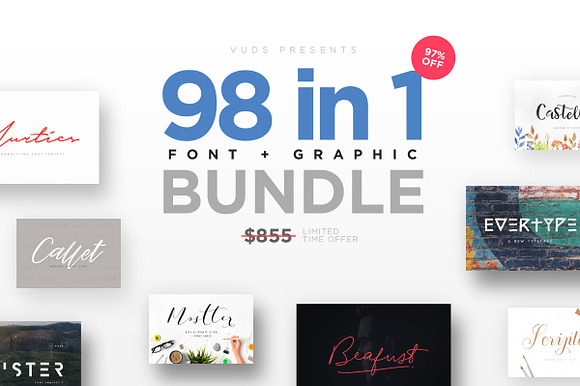
Fontgrap Font Graphic Bundle
INTRODUCING FONTGRAP (98 Fonts + 750 Graphics Pack)
Hello! Save your money and get all the best selling fonts from my store only $21 for very limited time. This bundle include almost font with any style; script, hand written, sans serif, serif, etc. Ups!! almost forget you also get bonus over 750 graphic kit inside this product.
All beautiful fonts carefully with crafted. These fonts are perfect for logos, blog, social media, posters, apparel, wedding invitations, labels and many others.